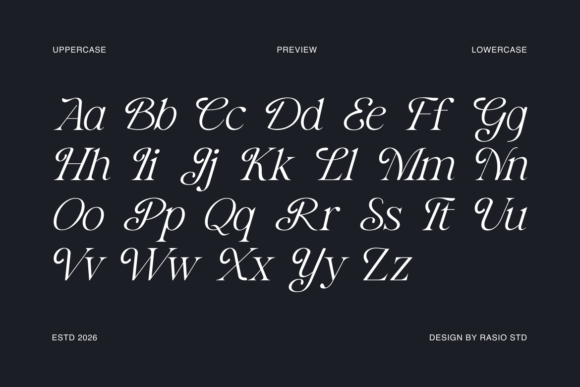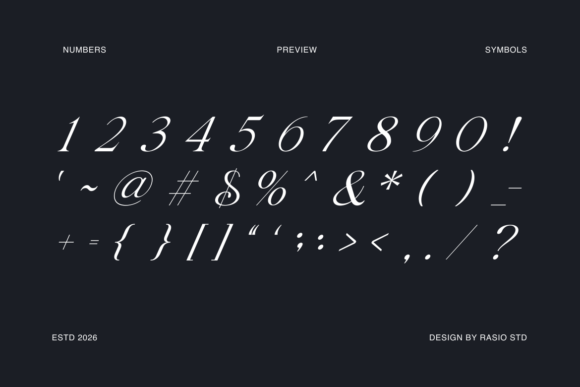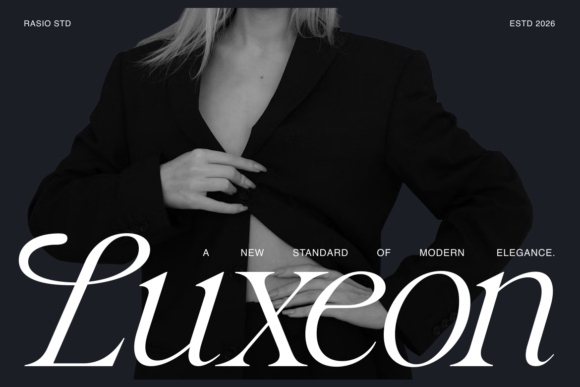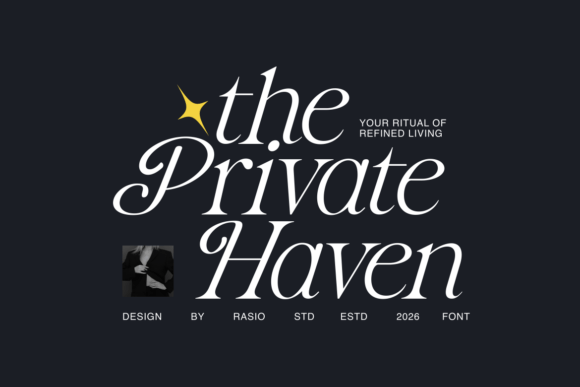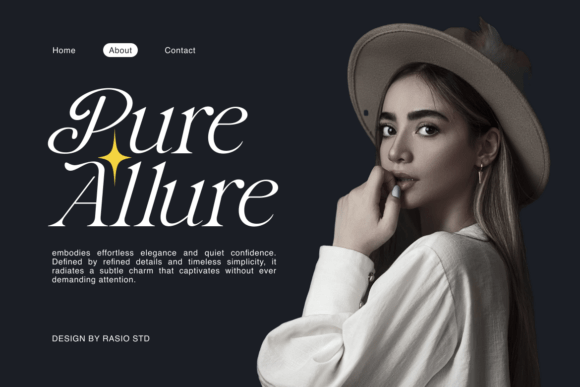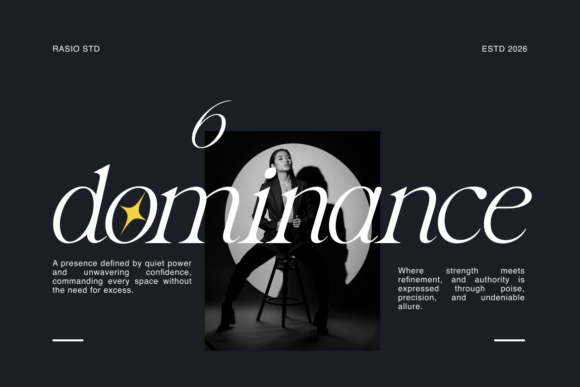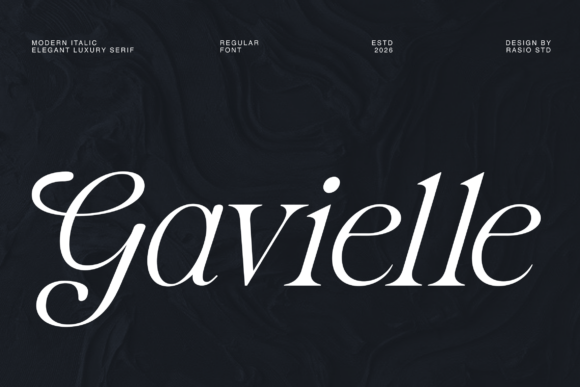
Introducing Gavielle: The Epitome of Elegance in Modern Italic Serif Fonts
In the realm of typography, few fonts manage to convey the essence of luxury and elegance as effortlessly as Gavielle. This modern italic serif font is a masterpiece of design, crafted with meticulous attention to detail to bring a poetic fluidity to your design framework. Gavielle is not just a font; it’s an experience, an instant shortcut to upscale, high-society branding that speaks volumes about sophistication and refinement.
The Design Philosophy Behind Gavielle
At the heart of Gavielle’s breathtaking appeal is its premium visual tracking and balanced letter curves. Each letterform is a work of art, designed to flow seamlessly into the next, creating a harmonious and elegant text that commands attention. The font’s curves are meticulously balanced to ensure that every word and sentence conveys a sense of fluid motion, making it perfect for designs that require a touch of dynamism and luxury.
Applications of Gavielle: Where Luxury Meets Design
Gavielle’s versatility is one of its most compelling attributes. This font can be layered beautifully over a variety of backgrounds, from rich textured backdrops to minimalist layouts and editorial photography. Its ability to let negative space breathe with pure luxury makes it an extraordinary design asset for several high-end applications:
- High-End Wedding Invitation Suites: Gavielle brings an air of exclusivity and romance to wedding invitations, setting the tone for a luxurious and memorable event.
- Boutique Fragrance and Cosmetic Labels: For luxury brands in the fragrance and cosmetics industry, Gavielle offers a typographic solution that embodies elegance and sophistication.
- Luxury Hotel or Resort Logos: The font’s modern yet classic appeal makes it an excellent choice for luxury hotels and resorts looking to brand themselves with a sense of high-end quality and service.
- Artisanal Jewelry Packaging: Gavielle’s luxurious feel is perfectly suited for artisanal jewelry packaging, enhancing the perceived value and exclusivity of the product.
- Upscale Editorial Magazine Headlines: For magazines that aim to convey a sense of luxury and high culture, Gavielle serves as an excellent choice for headlines, adding a touch of elegance to the editorial content.
Why Choose Gavielle for Your Design Projects?
Choosing Gavielle for your design projects is synonymous with opting for quality, elegance, and a deep understanding of luxury branding. Here are a few reasons why Gavielle stands out:
- Unique and Exclusive: Gavielle offers a unique aesthetic that sets it apart from more common fonts, ensuring your designs have a distinctive look.
- High Versatility: Its adaptability to different design contexts, from digital platforms to print materials, makes Gavielle a versatile tool in any designer’s arsenal.
- Ease of Use: Despite its luxurious appearance, Gavielle is designed to be user-friendly, allowing designers to integrate it seamlessly into their projects.
Gavielle is more than just a font; it’s a design statement that speaks to those who appreciate the finer things in life. With its modern italic serif elegance, premium visual tracking, and balanced letter curves, Gavielle is poised to become the go-to font for designers and crafters aiming to infuse their projects with a sense of luxury and high-society appeal. Whether you’re working on a high-end wedding invitation, a luxury brand logo, or an upscale editorial piece, Gavielle offers the perfect blend of elegance, sophistication, and poetic fluidity to elevate your designs to new heights.